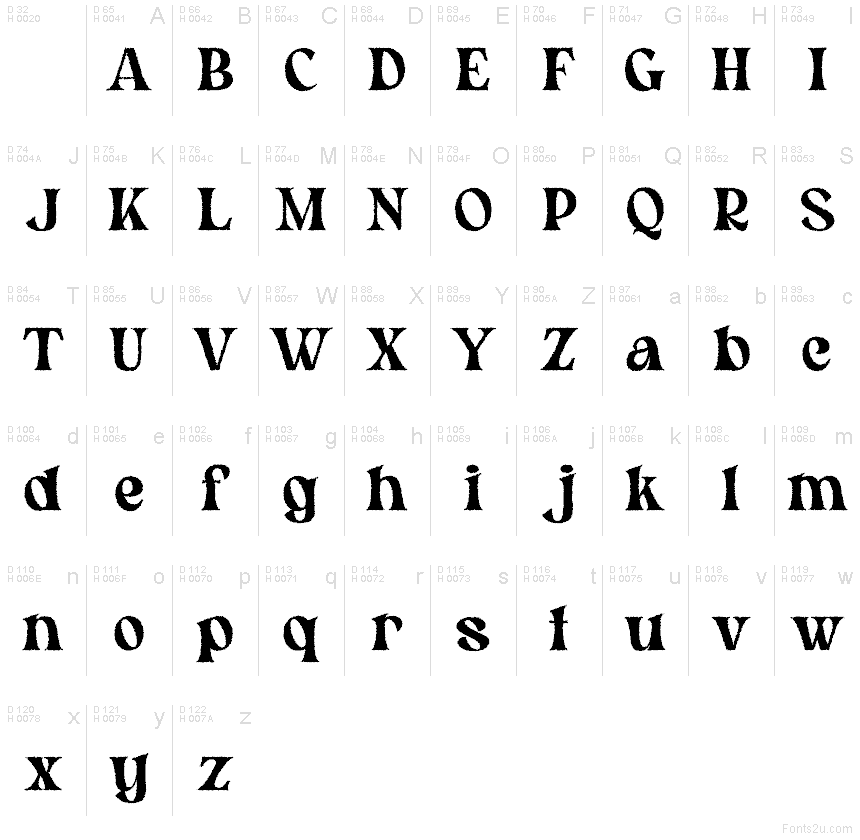
Rantys Rough Regular Demo
Rantys Rough font by Craft Supply Co. is a style that gathers elements of medieval art, historical architecture, and deep visual culture. With high contrast, its rugged appearance gives it a stony constitution similar to worn-out castle engravings. All the letters, numbers, and symbols included look majestic enough for making the King himself jealous.
Use it to design game covers or applications with a similar theme, movies that are of the Lion King vibe or even posters inspired by the medieval times. Modern applications are also allowed if you’re going for an artistic approach so play around with logos, headlines, branding projects and so on.